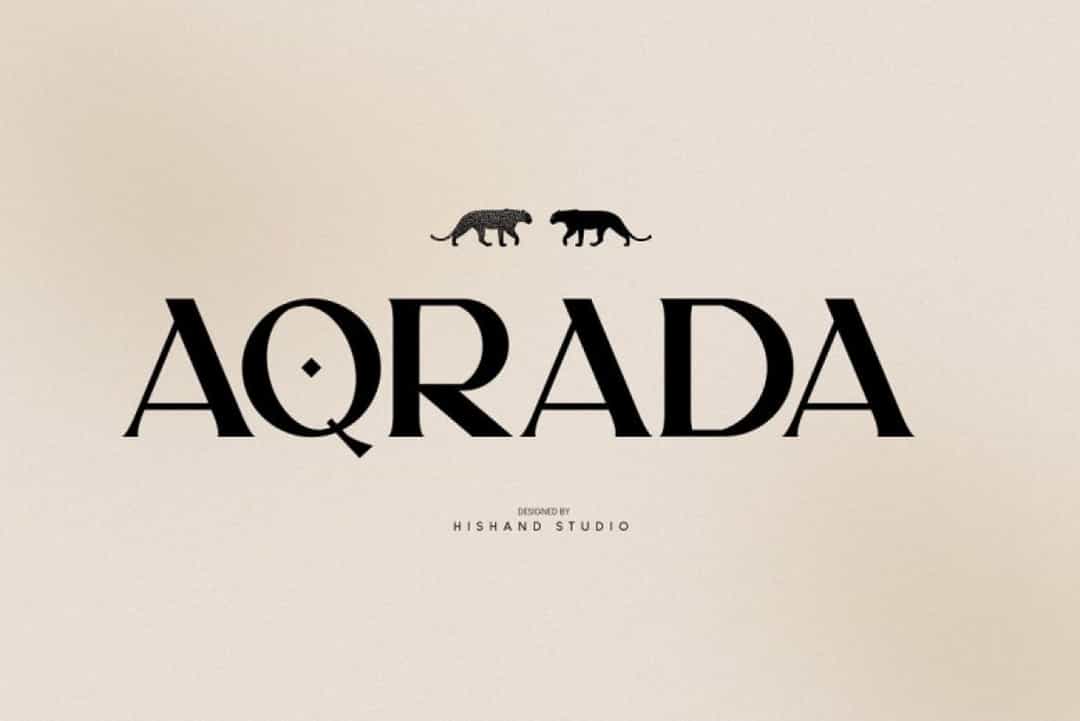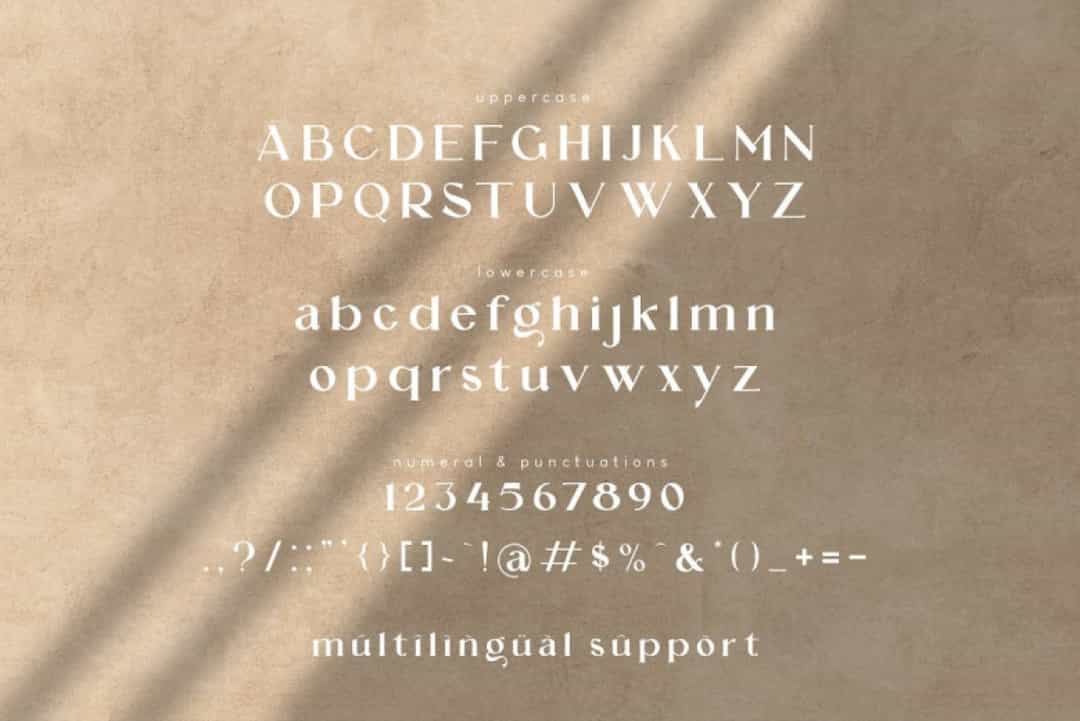
Now available is the AQRADA font – a stylish Display Type with an elegant appearance, ideal for those seeking an elegant touch elegant, chic gorgeous bold type and modernity in their designs.